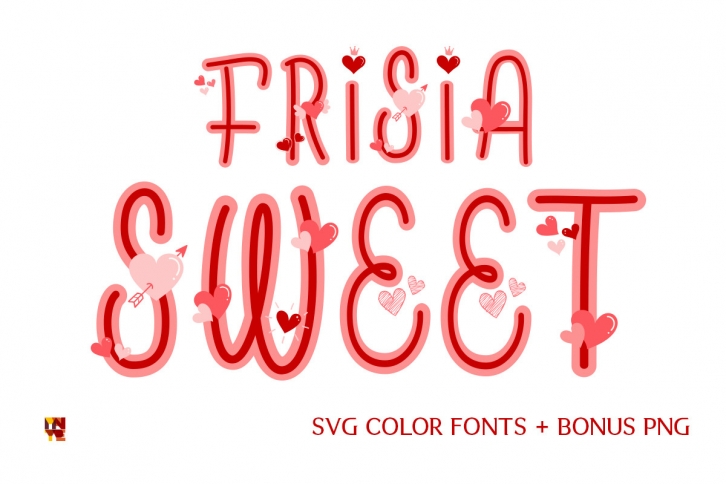
Frisia Sweet is a cute and girly handwritten color font with a fresh and soft pink color palette. It can be used for school projects, posters, merchandise, Valentine cards, or crafting project. Frisia Sweet will give a joyful feel to your creative projects.